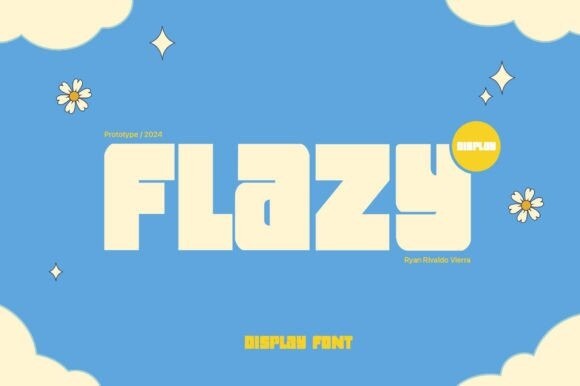
Flazy Font
Designer: Ryan Vierra
Flazy Font is a fun, playful display font bursting with energy and whimsy. Its bold, rounded characters and lively swashes make it perfect for captivating headlines, children’s books, and any project that demands a touch of joy and creativity. Ideal for making a cheerful statement.